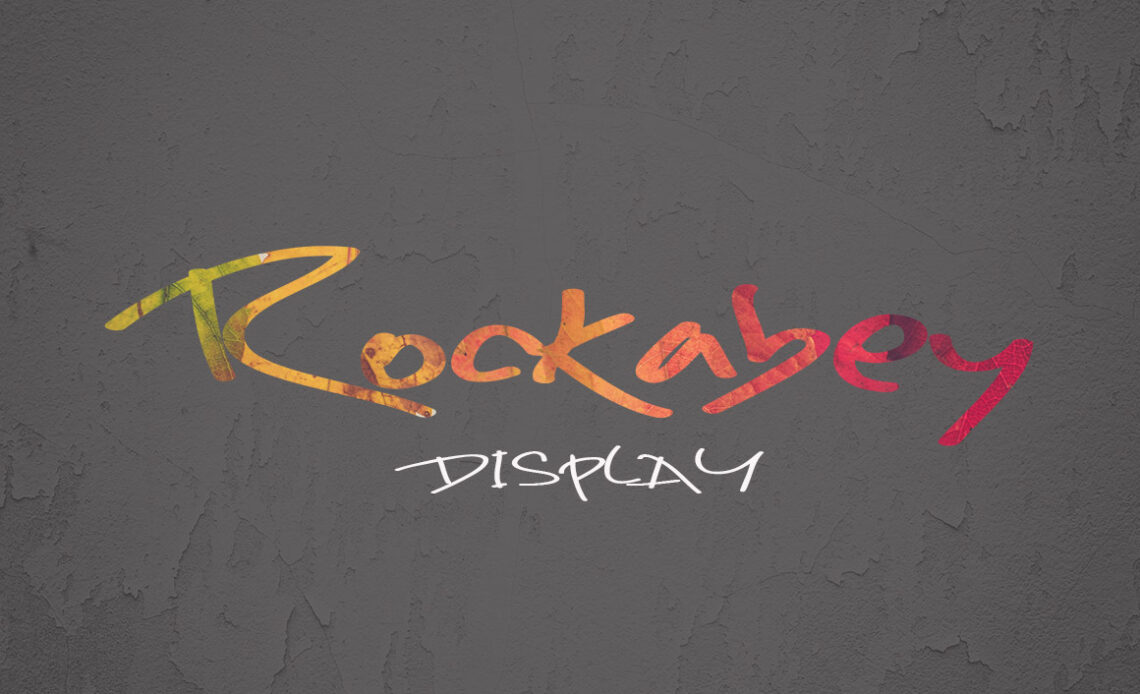
Welcome to the world of Rockabey Font, where elegance and modernity intertwine to create a timeless masterpiece. This captivating script font, brought to life by the creative minds of Pineungtype and Missinklab, is your gateway to crafting designs that speak to the soul.
Escape the mundane and embrace the extraordinary with Rockabey Font. Its flowing lines and graceful curves evoke a sense of sophistication, while its modern touch adds a contemporary edge that's sure to leave a lasting impression. Each letter is meticulously crafted to embody both classic beauty and modern flair, making Rockabey Font the perfect choice for a wide range of design projects.
With its versatile personality, Rockabey Font effortlessly adapts to your creative vision. Whether you're designing wedding invitations, branding materials, social media posts, or any other project that calls for a touch of elegance, Rockabey Font will elevate your designs to new heights. Unleash your creativity and let Rockabey Font guide you on a journey of design excellence.
Imagine your words taking on a life of their own as they flow across the page in the enchanting strokes of Rockabey Font. Its seamless transitions and flawless execution create a visual symphony that captures attention and captivates hearts. Your designs will exude a timeless charm that transcends trends, ensuring that your message resonates with audiences for years to come.
Join countless designers, artists, and creatives who have discovered the transformative power of Rockabey Font. Let your imagination soar as you explore the endless possibilities this font presents. Create designs that evoke emotion, convey messages with clarity, and leave an unforgettable impression on your audience.